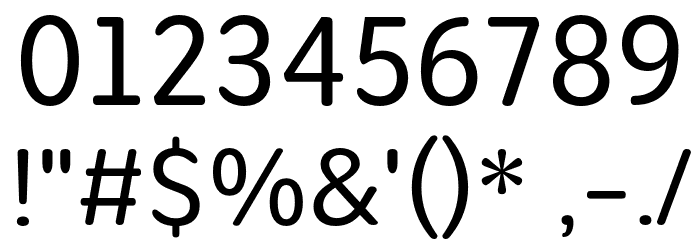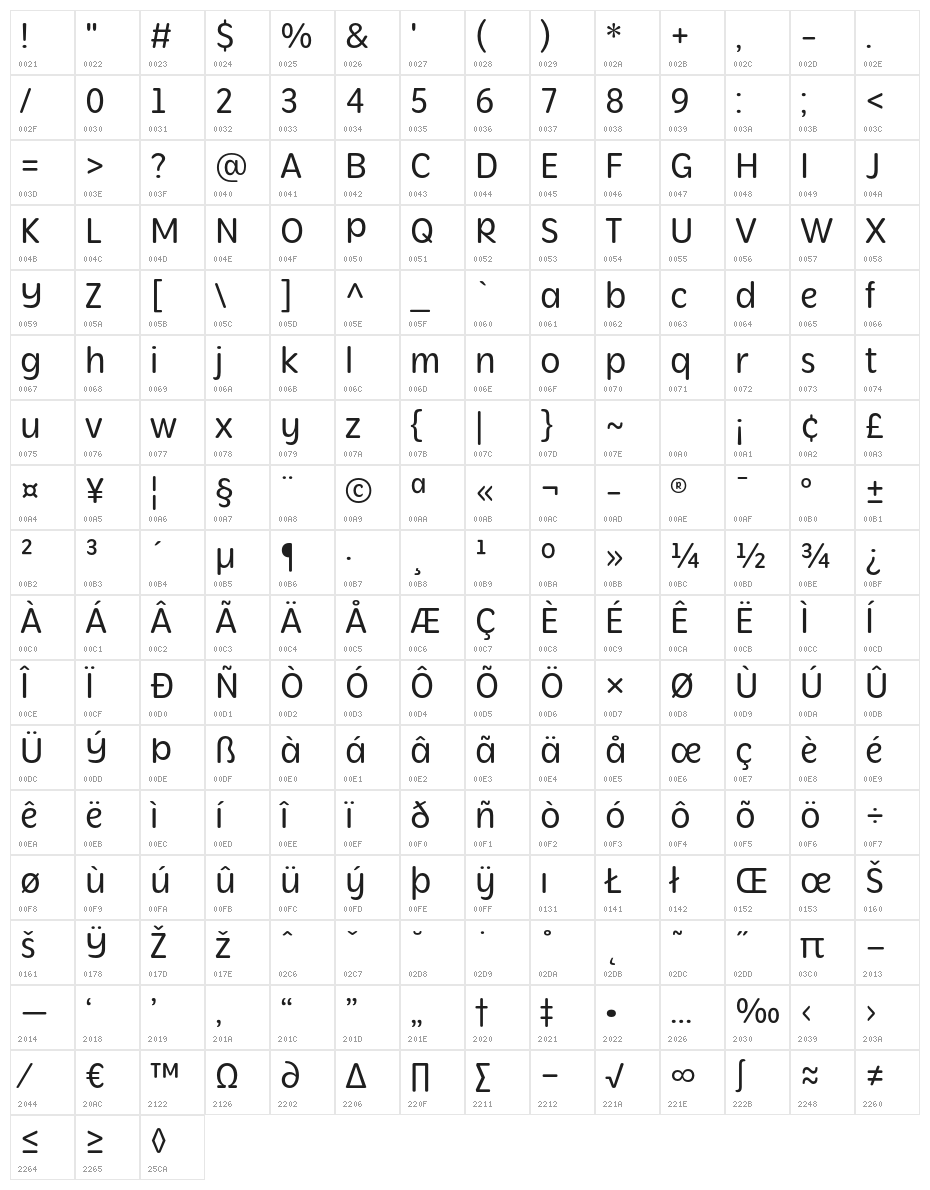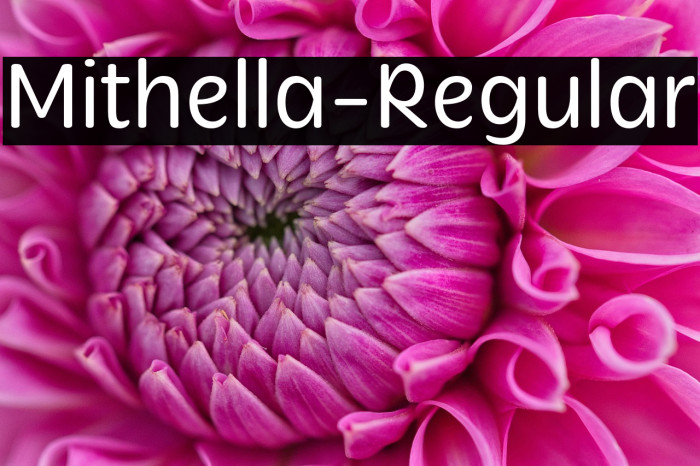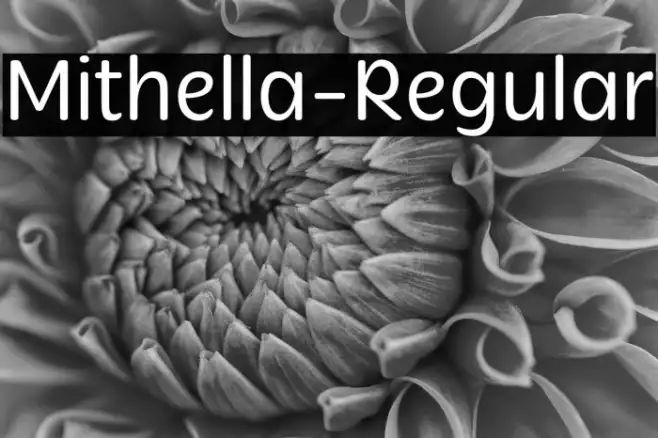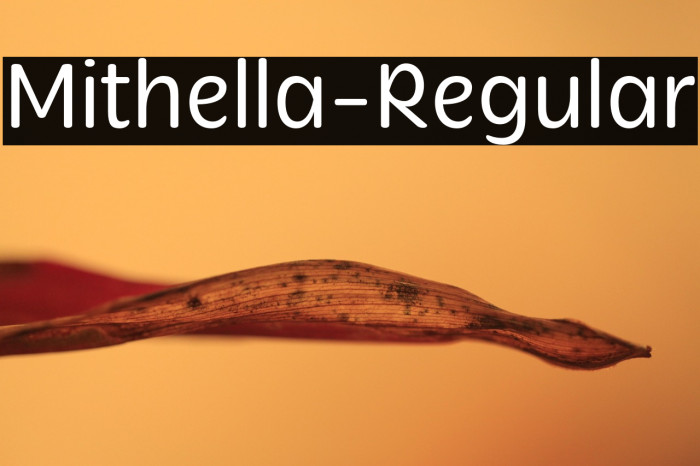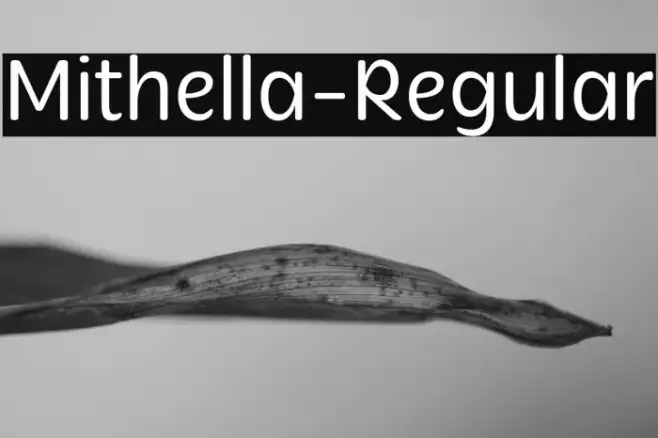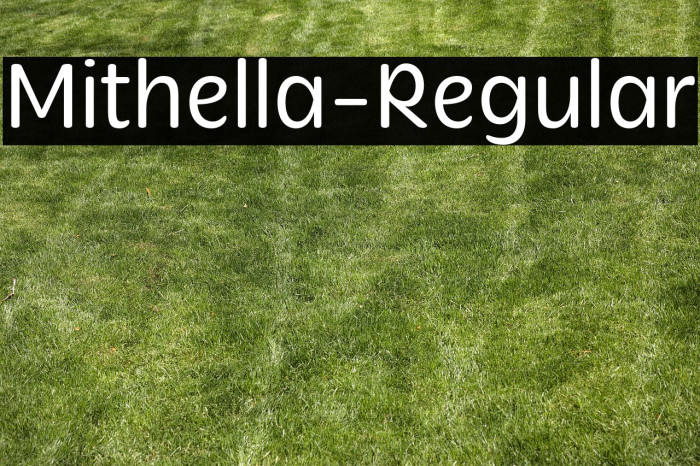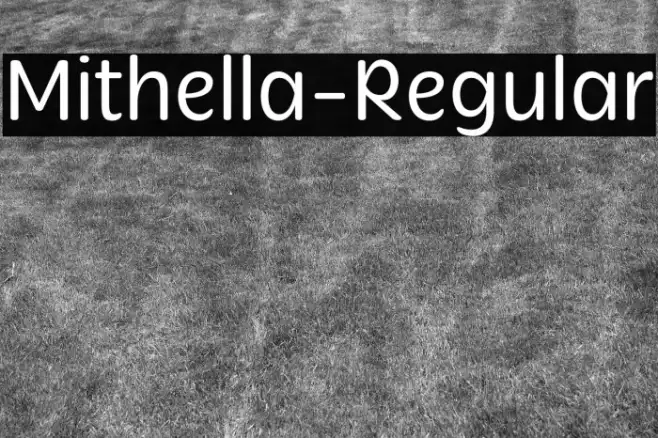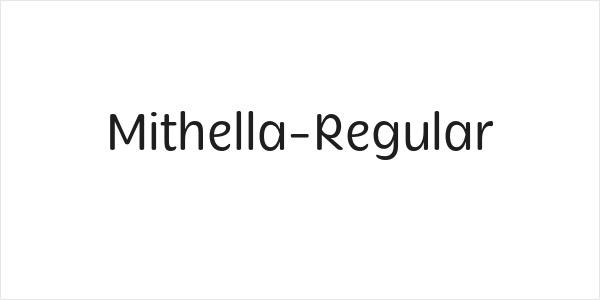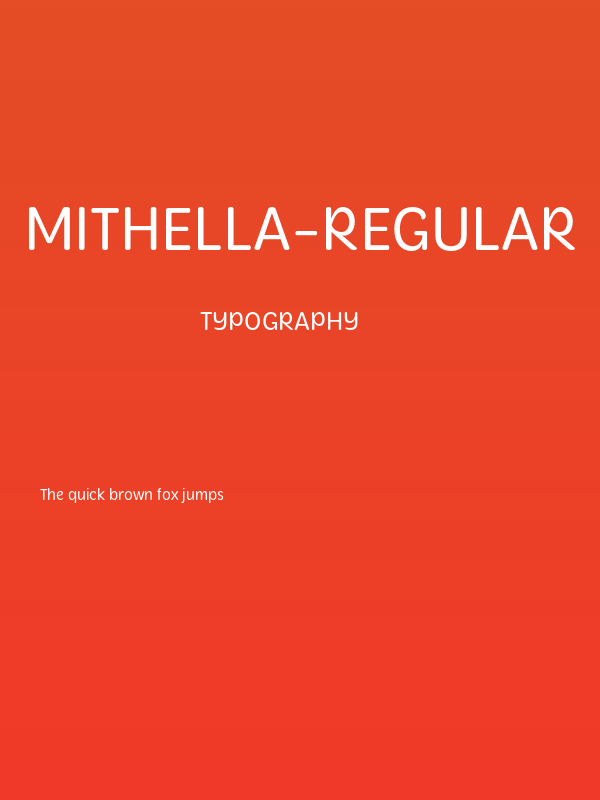
Mithella-Regular Font
Mithella-Regular Description
This font features a clean and modern sans-serif style with rounded edges that give it a friendly and approachable appearance. The characters are evenly spaced, providing a balanced and harmonious look. The uppercase and lowercase letters are well-proportioned, with a consistent stroke width that maintains readability across different sizes. The numerals are clear and distinct, making them suitable for various applications. The special characters are designed to complement the overall style, ensuring versatility in usage. This font is ideal for digital and print media, offering a contemporary aesthetic that is both professional and inviting.